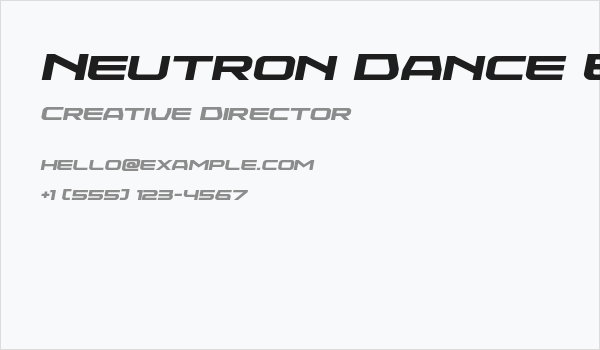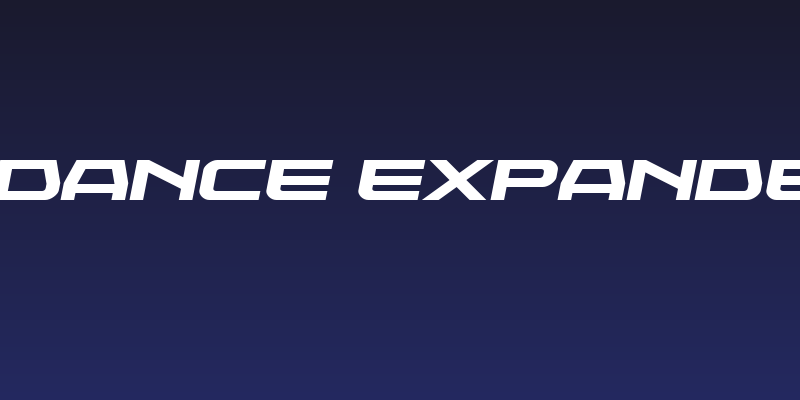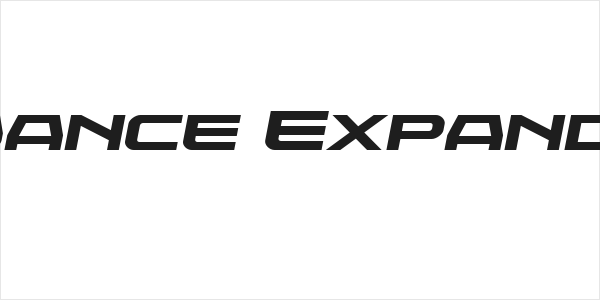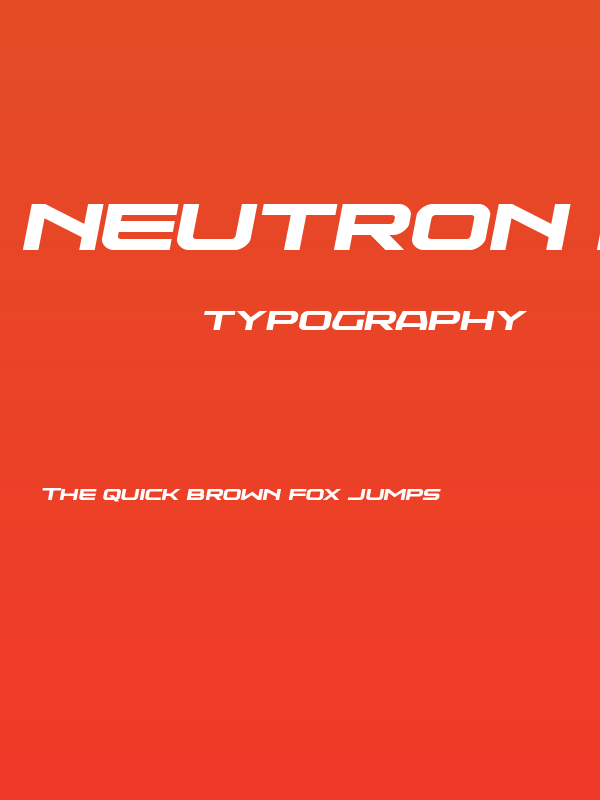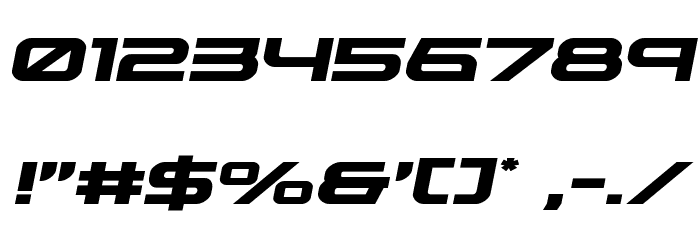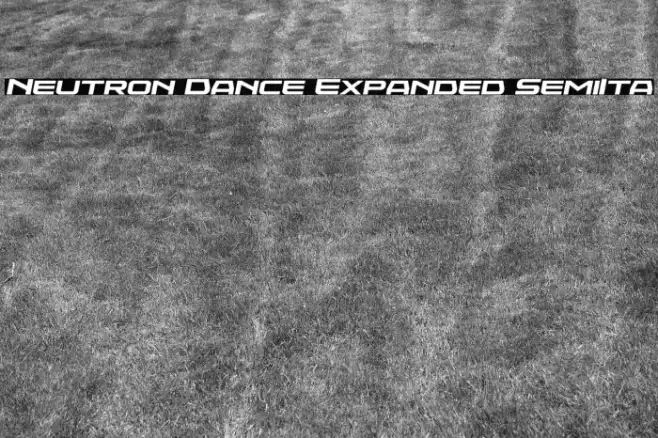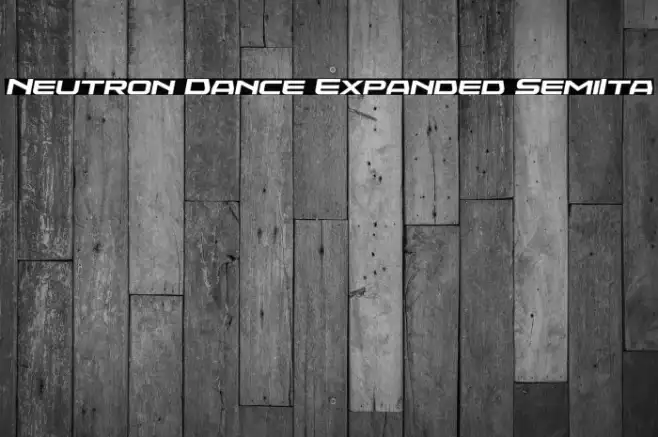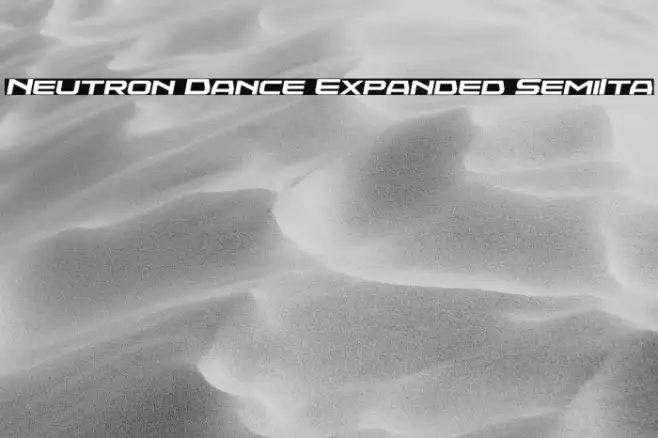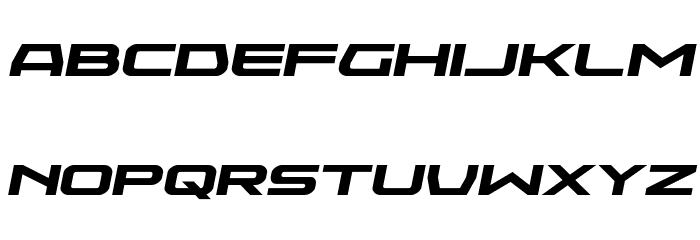
Neutron Dance Expanded SemiIta Font
Neutron Dance Expanded SemiIta Description
This font features a futuristic and dynamic style, characterized by its expanded and semi-italicized form. The letters have a sleek, angular design with a forward-leaning posture, giving a sense of motion and speed. The strokes are consistent in thickness, providing a uniform appearance across all characters. The numbers and special characters maintain the same stylistic elements, ensuring cohesion throughout. This font is ideal for projects that require a modern and energetic look, such as technology branding, sports team logos, or sci-fi themed designs.
| Proposed Projects | Ideal for technology branding, sports logos, sci-fi themes, and dynamic posters. |